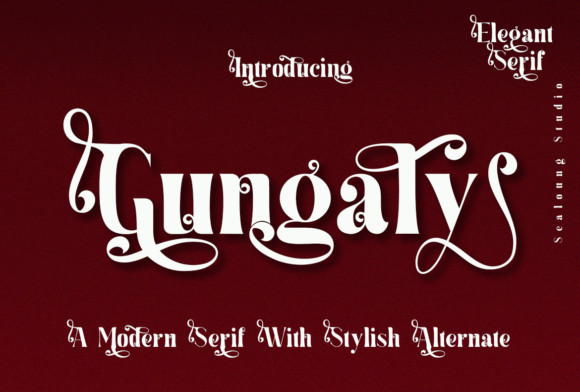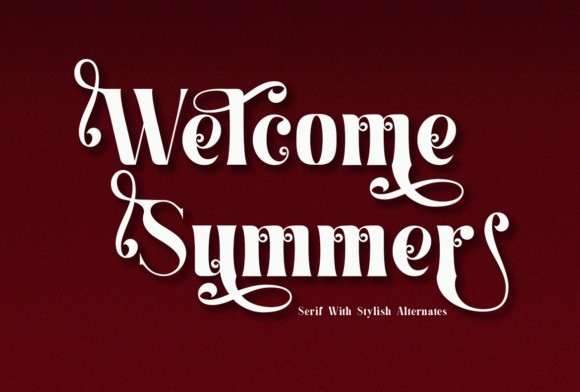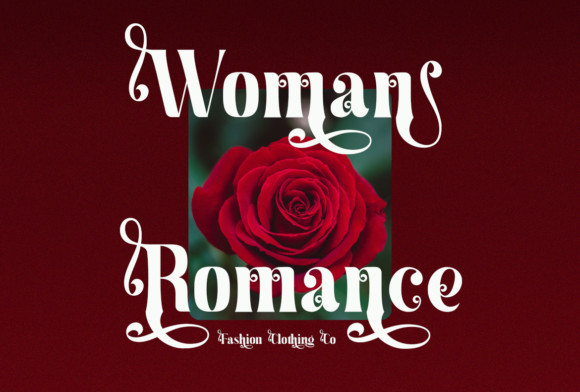
Gungaly Font
Gungaly feels playfully elegant and delivers an incredible unique aesthetic. Use this serif font to add that special trendy touch to any design idea you can think of!